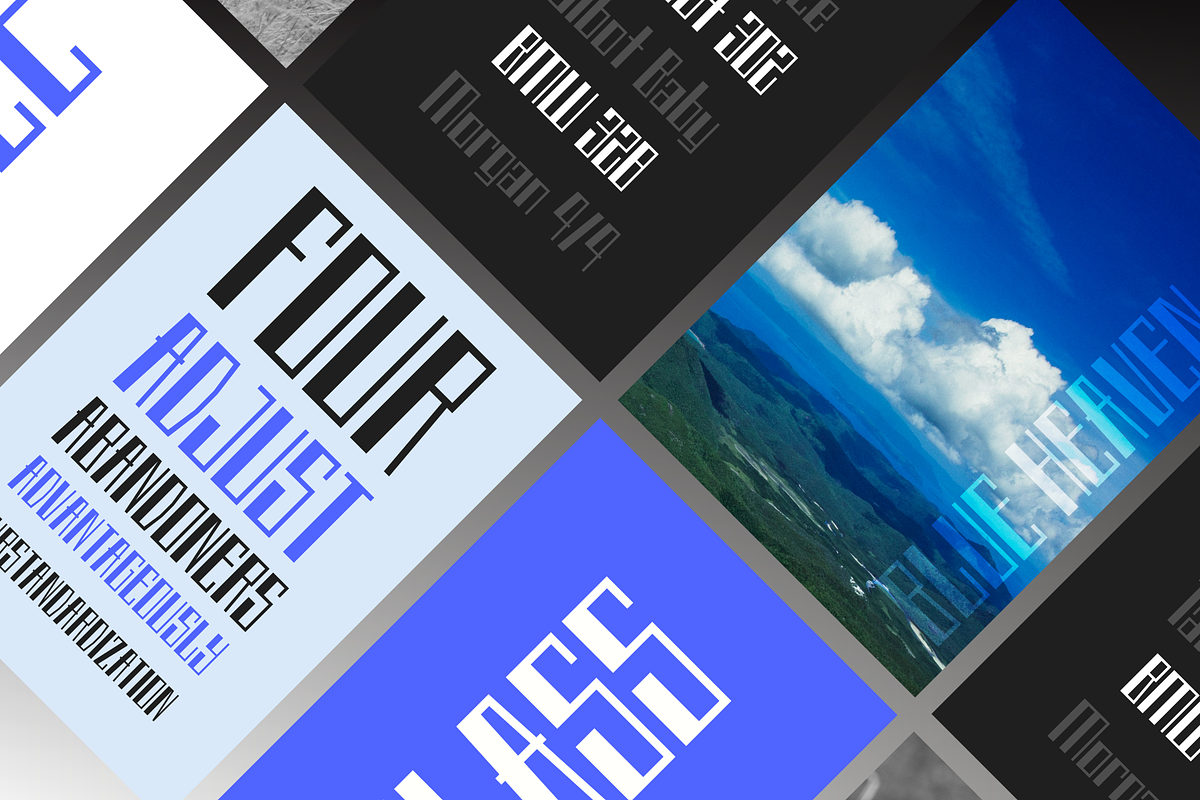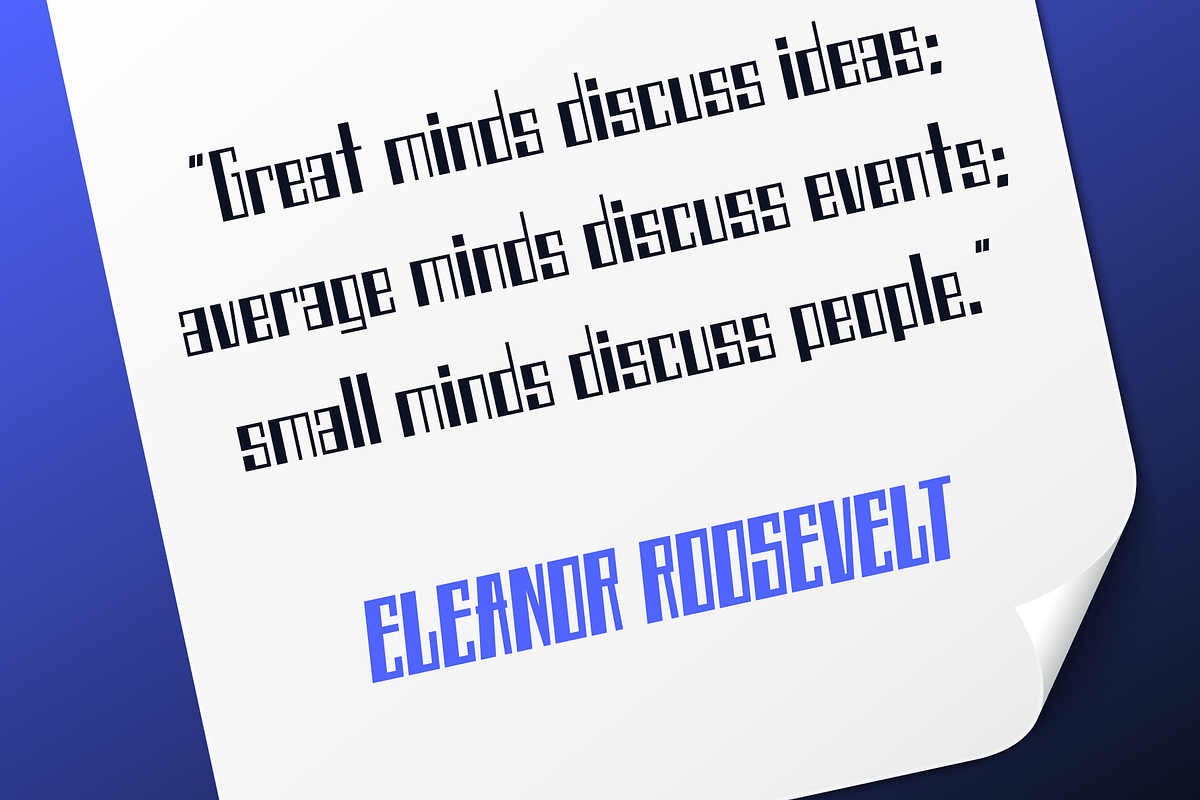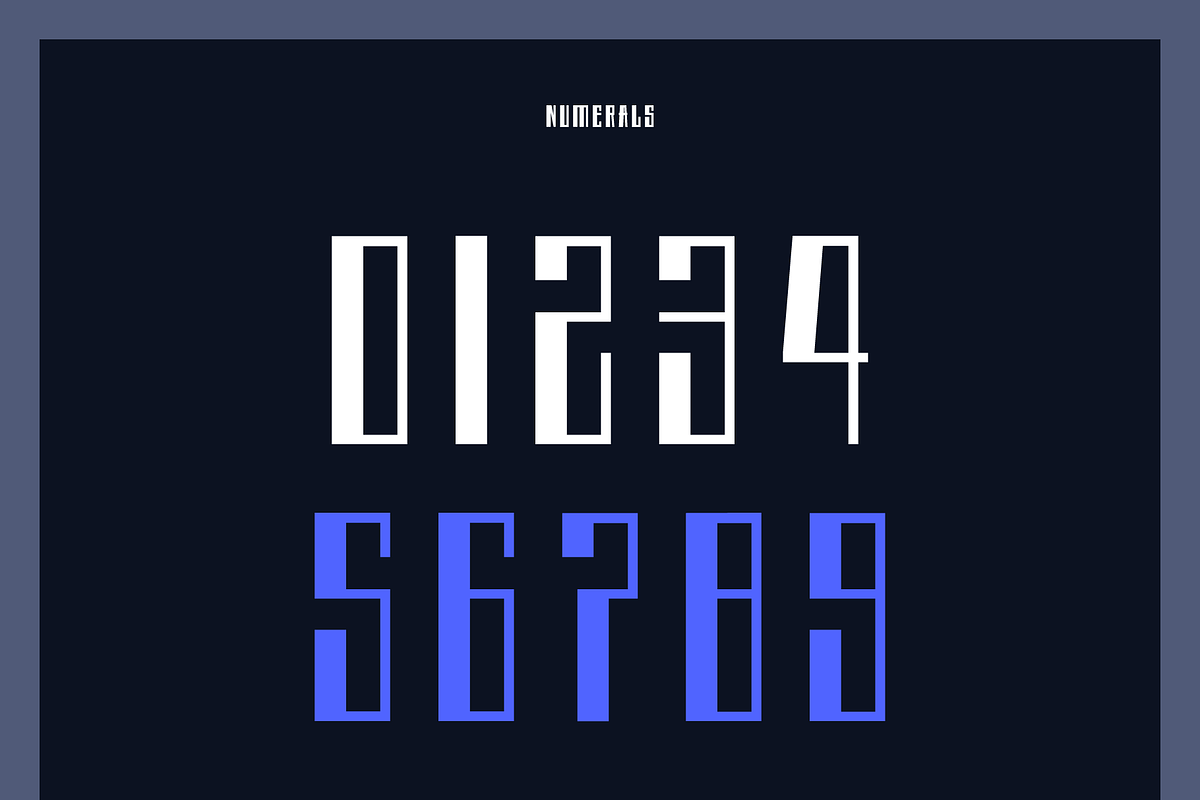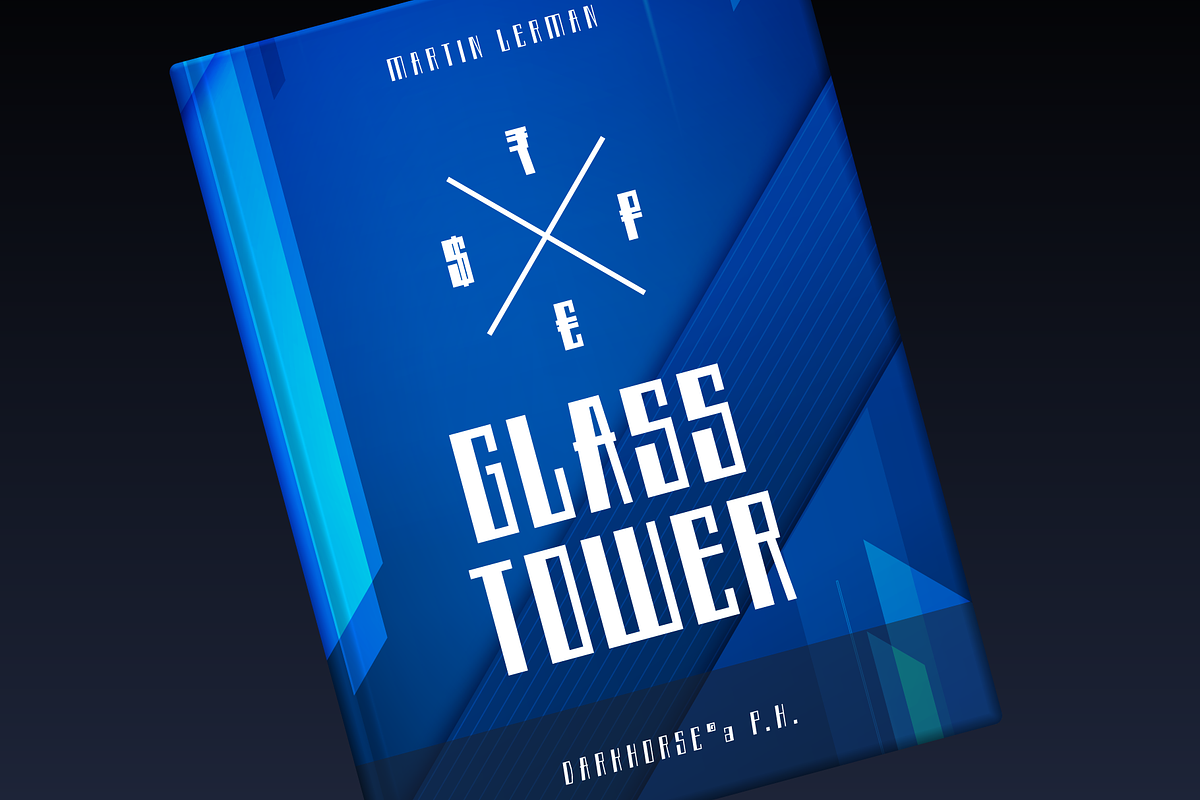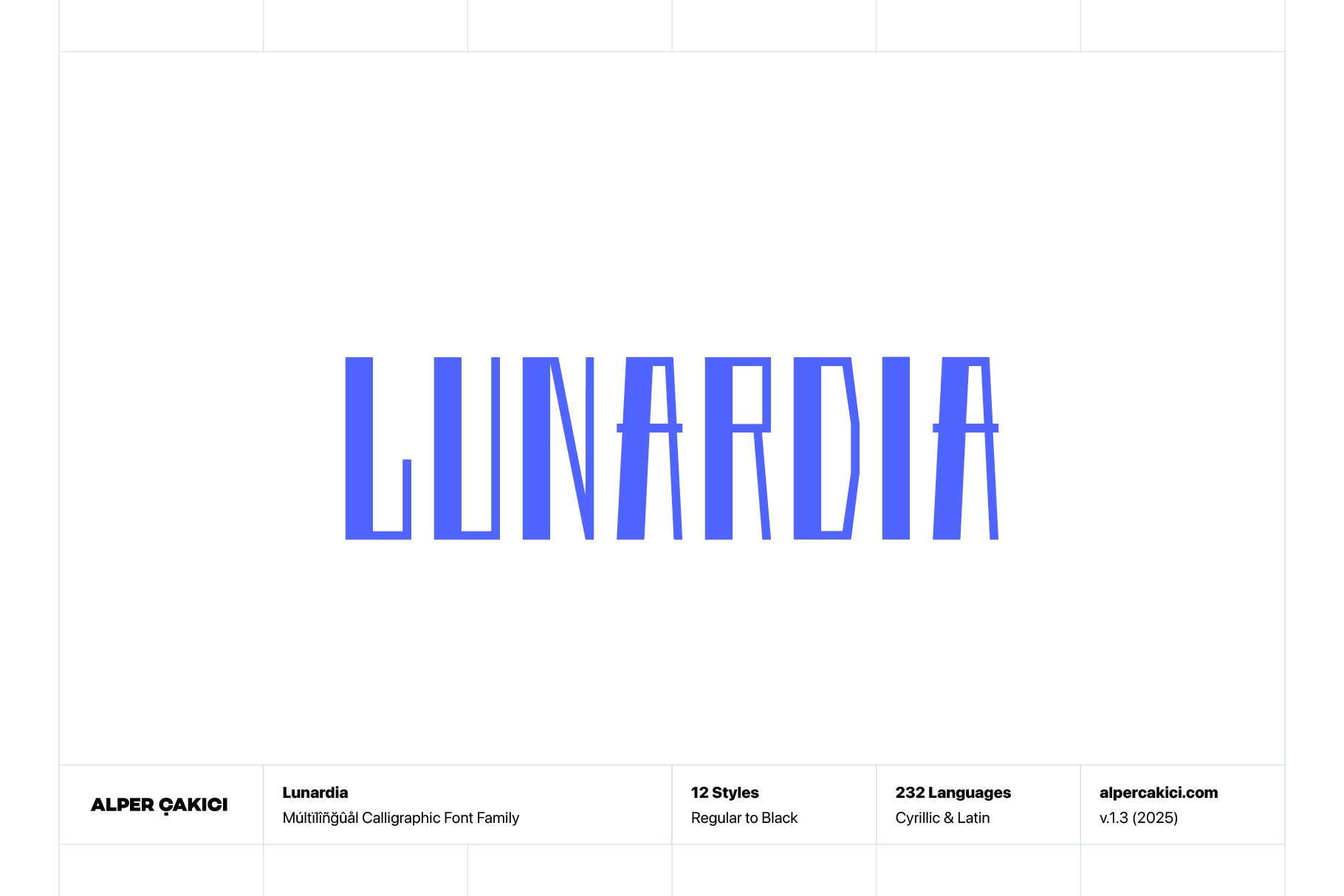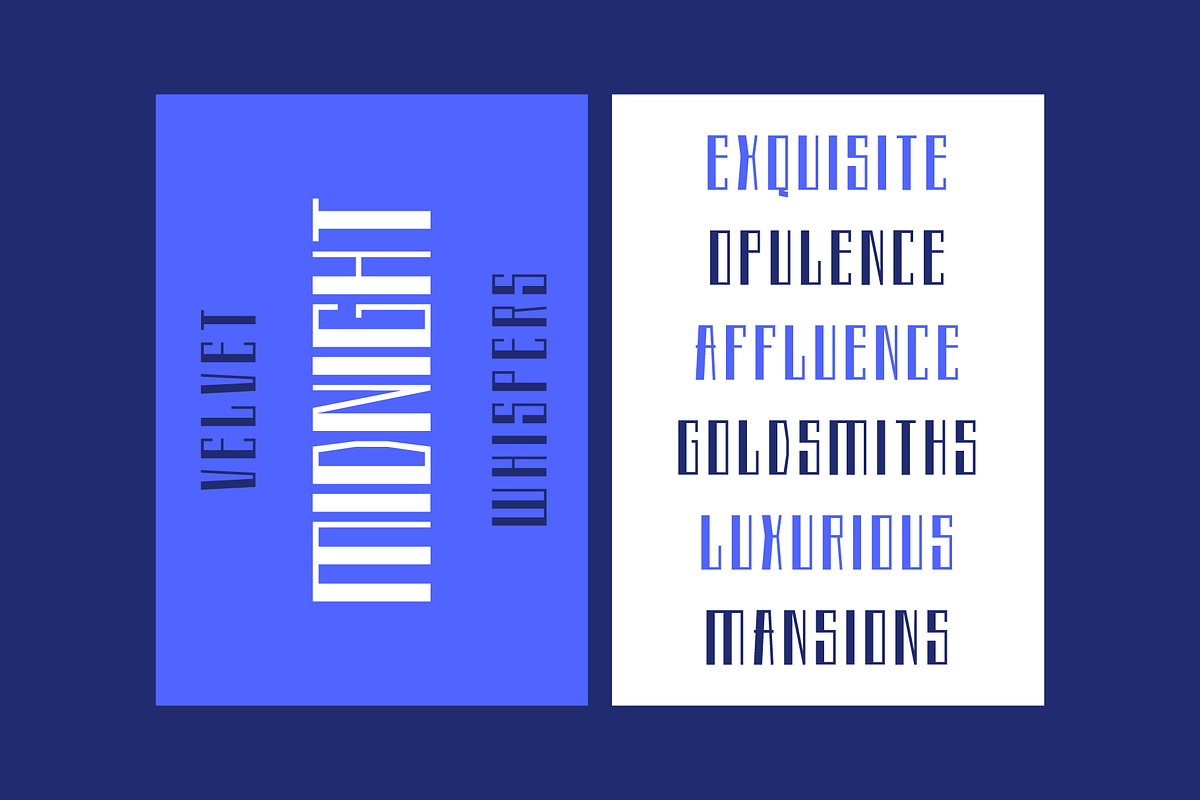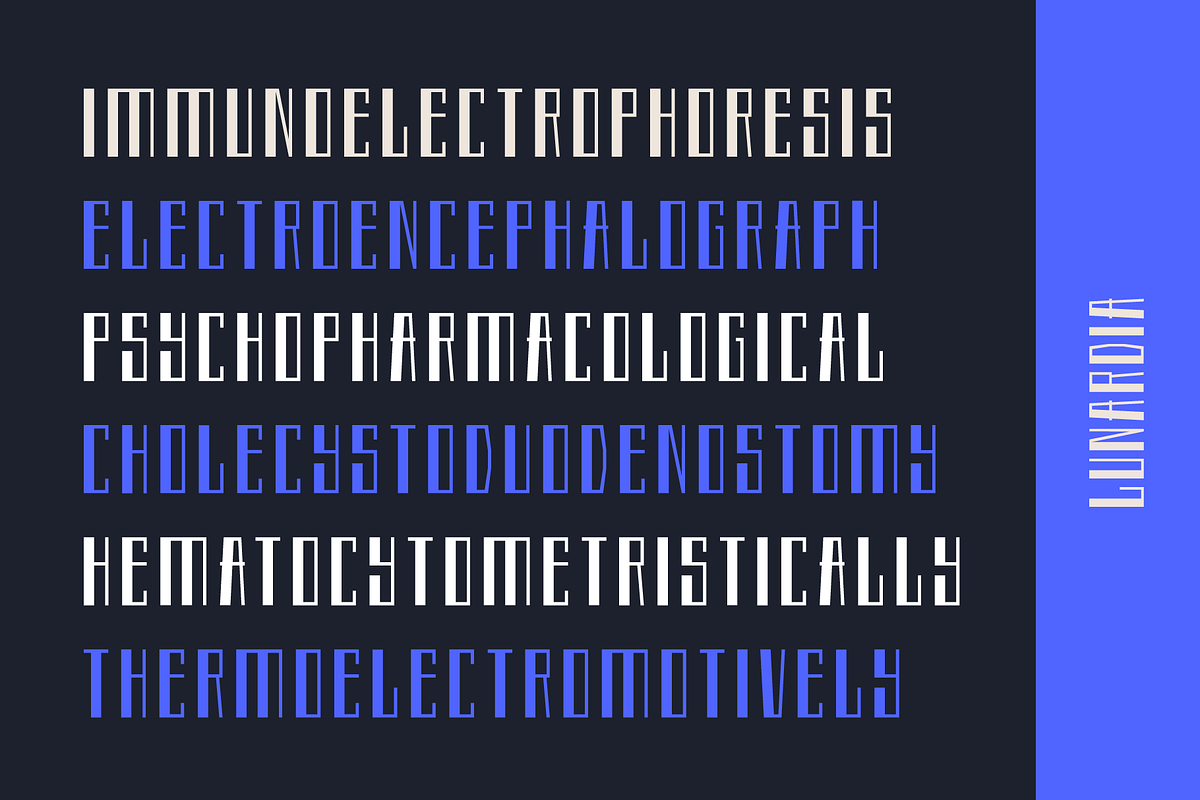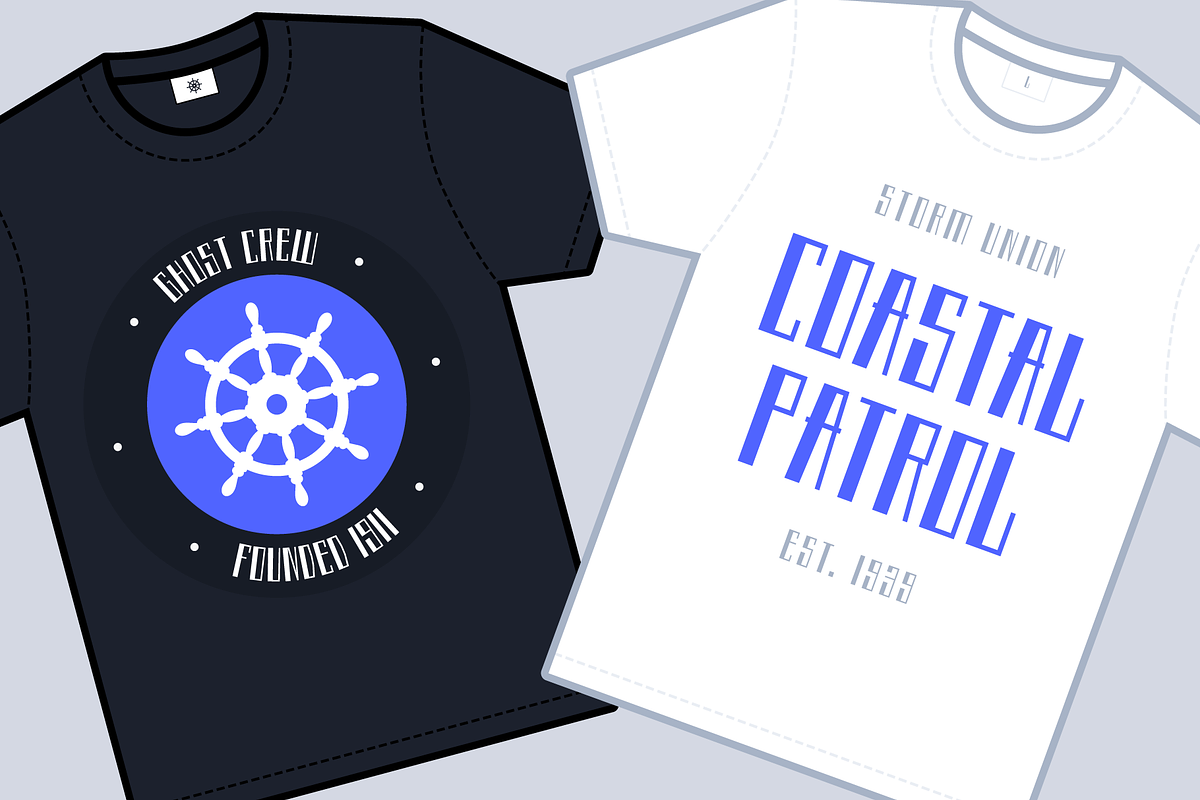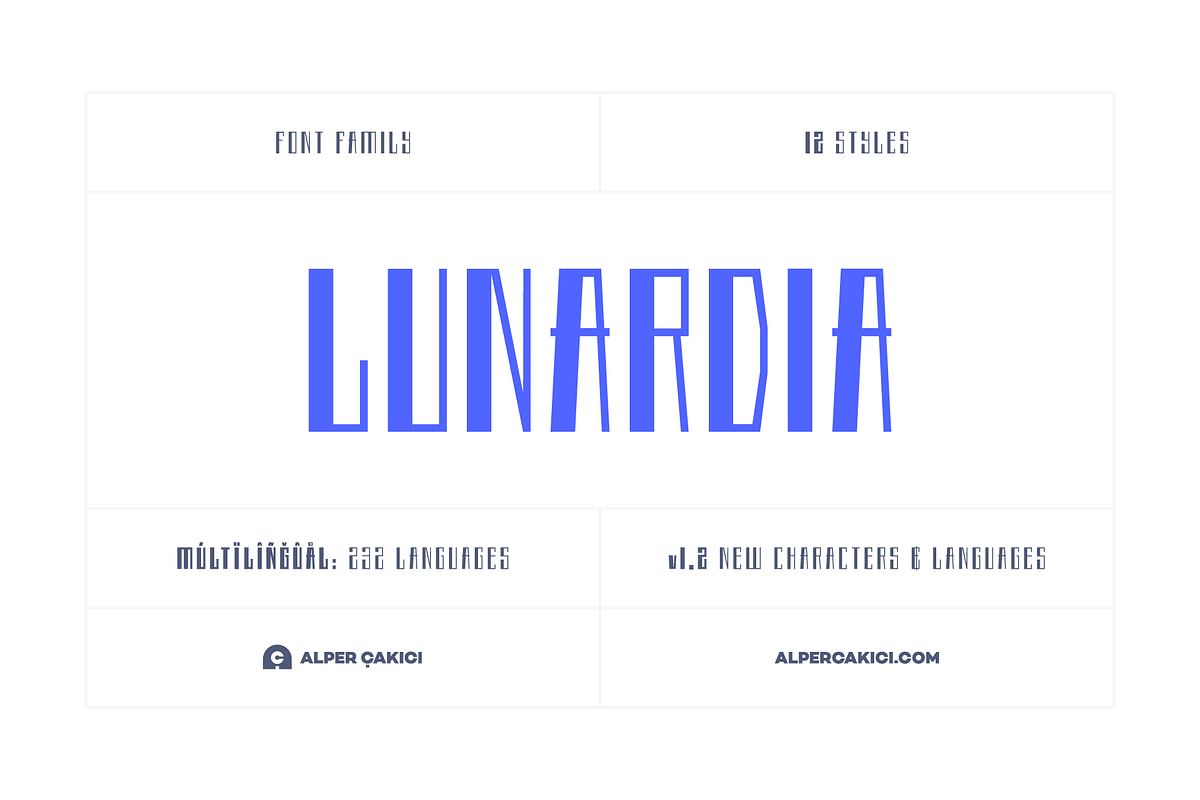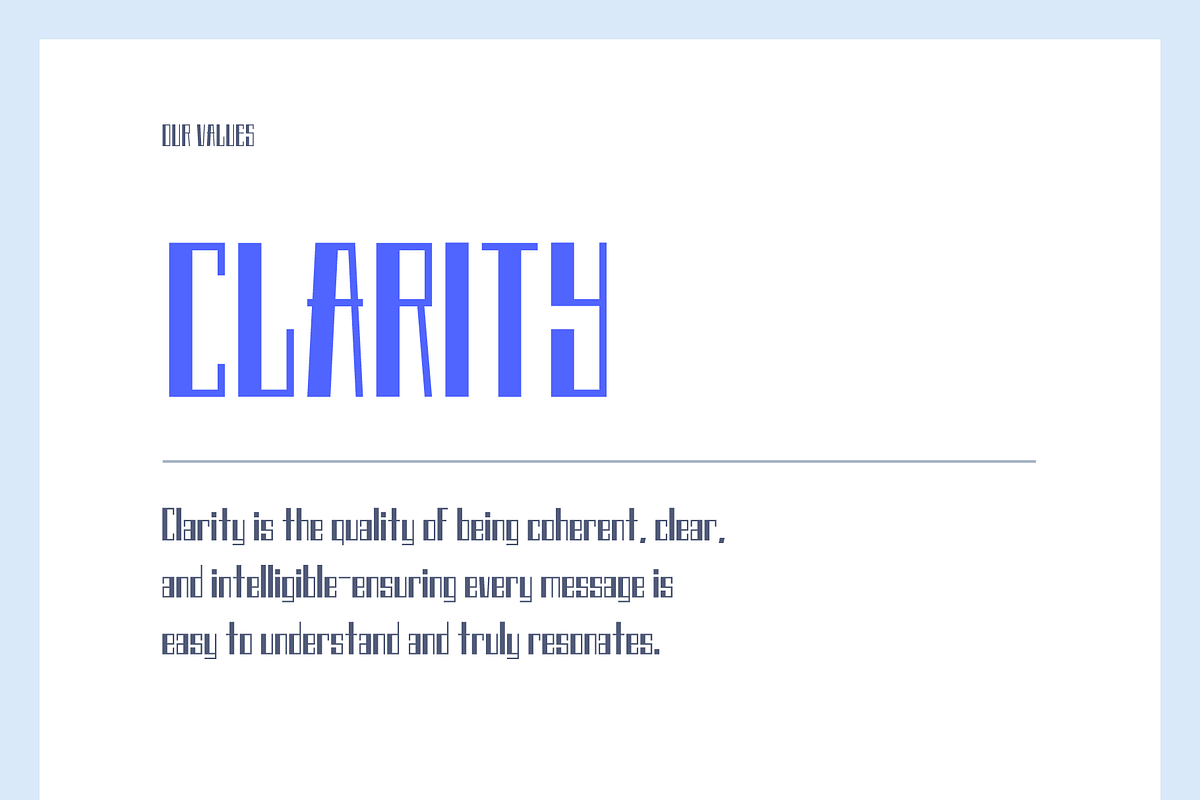
🌟 Lunardia – A Bold and Expressive Extended Display Font Family
Lunardia is a uniquely crafted display typeface designed to make your words stand out. With bold lines, sharp personality, and playful geometry, it’s perfect for everything from game interfaces to modern brand identities, social media graphics, and web design. Whether you're building a neon sci-fi game UI or a punchy lifestyle brand, Lunardia brings expressive energy to any creative project.
✨ Why Choose Lunardia?
Eye-Catching Design: A powerful, attention-grabbing display font that balances fun with readability. Extended Latin & Cyrillic: Designed to be global — not just decorative. Hand-Tuned for Digital Use: Optimized for advertising, UI, apps, and web projects. Perfect for Creative Projects: Ideal for logos, posters, YouTube thumbnails, Twitch overlays, and more. Professional Quality: Crafted with attention to spacing, balance, and style. Free Updates – You’ll always get the latest improvements. Free Support – Friendly help if you need it.
Lunardia supports 232 languages, including both Extended Latin and Extended Cyrillic character sets.